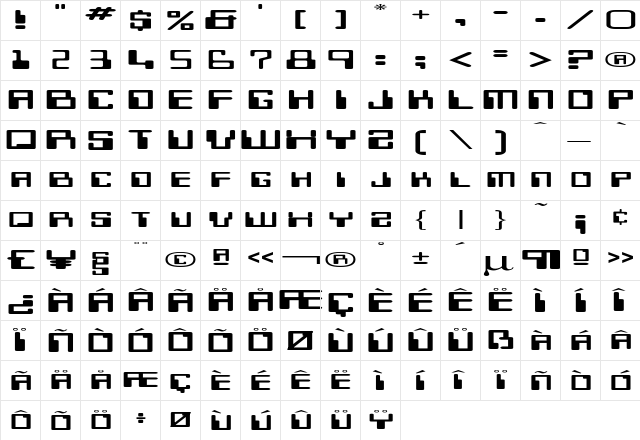
MicrFontExt Regular
Design Context for MicrFontExt Typeface
MicrFontExt is a composed and adaptable typeface that performs quietly and consistently across a wide range of design contexts.